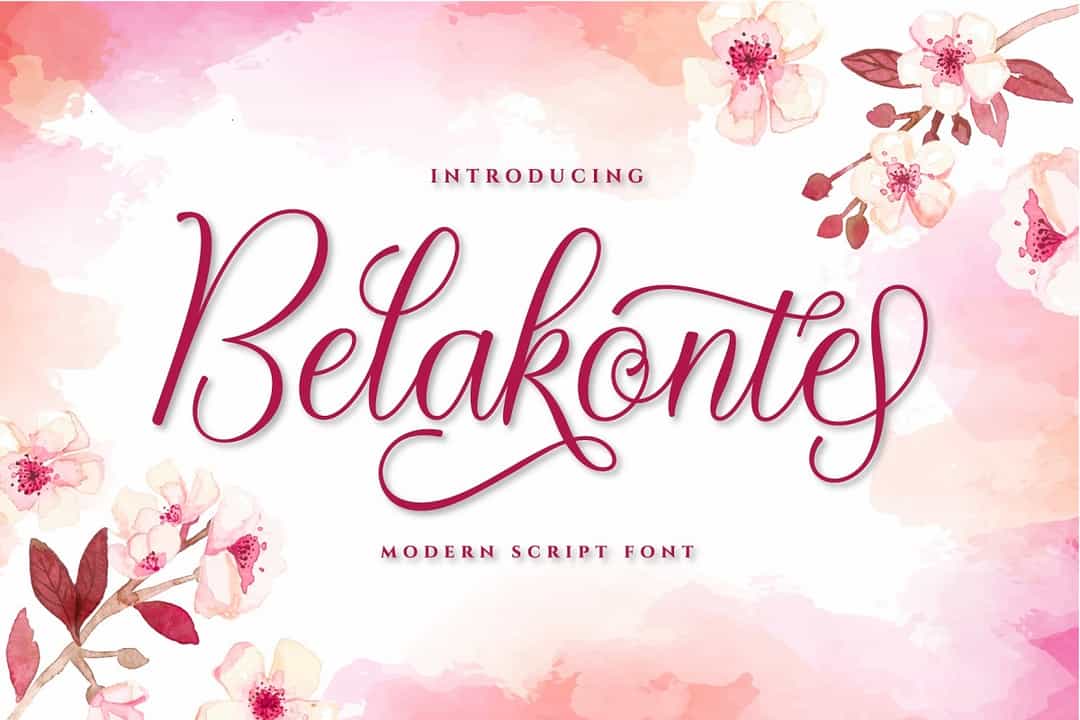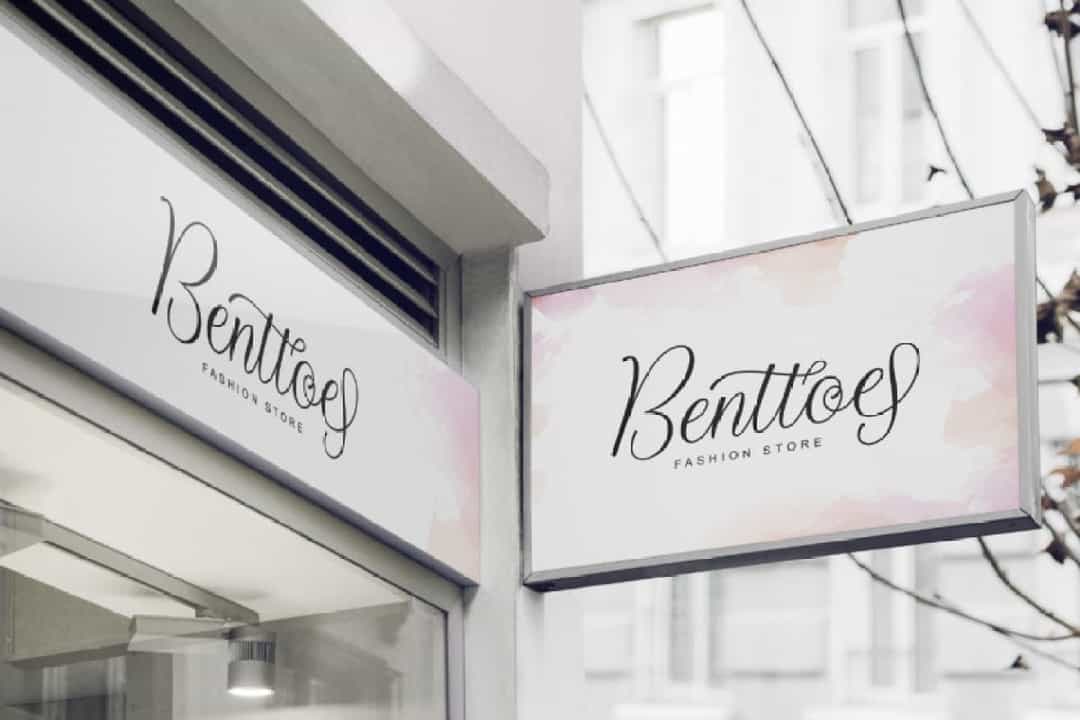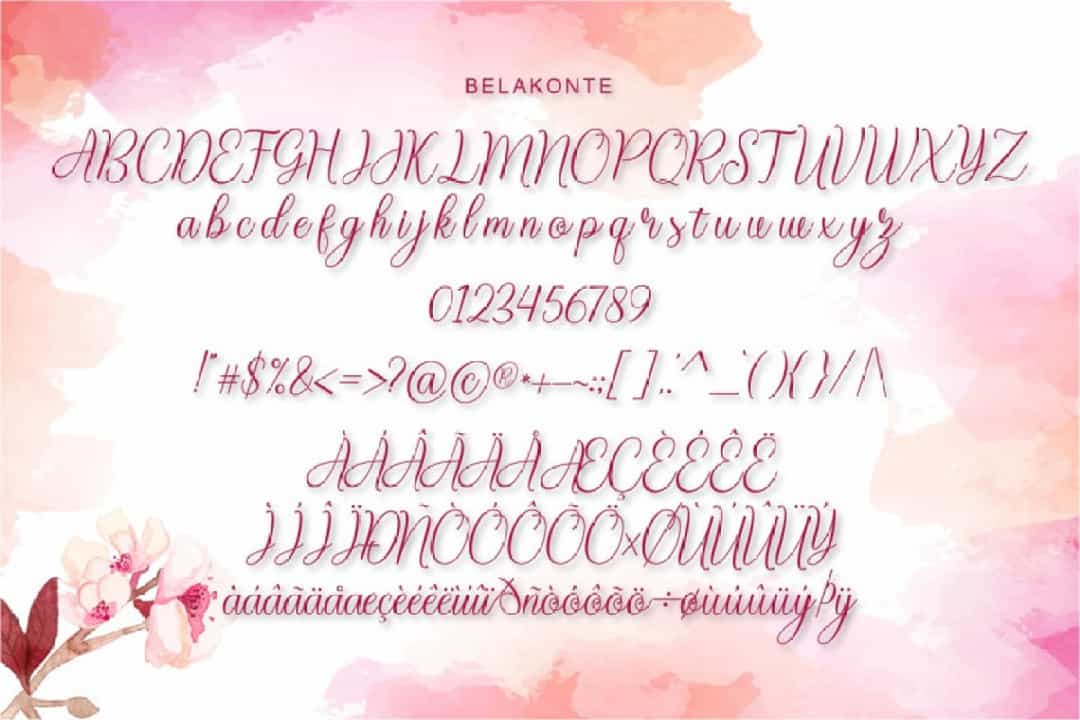
Here is Belakonte that is a sophisticated and elegant calligraphy font with lovely calligraphic strokes and it is PUA encoded thereby you can access all the style sets and ligatures of the font easily. Also, this font has adjustable baseline width, excellent line spacing, beautiful and elegant alternates and beautiful display features you will like.